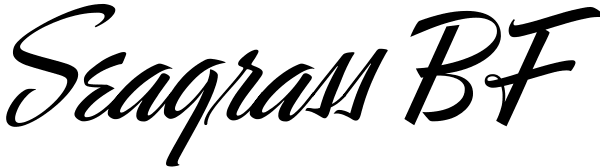
Seagrass BF
Inspired by lettering styles of the 1930s, Seagrass BF is jazzy and jumping as a Lindy Hop. As such it captures I believe, something of the spirit of that age, yet somehow retains a fresh, contemporary feel. Headlines, logos, packaging, signage and...